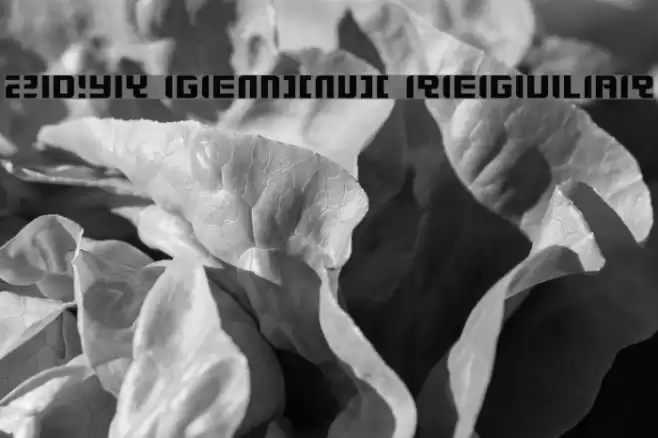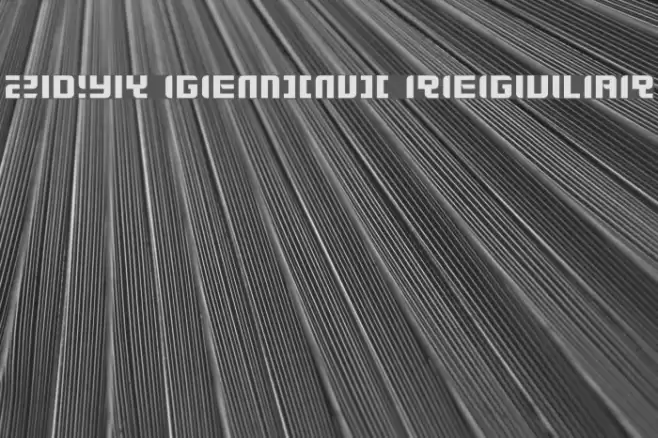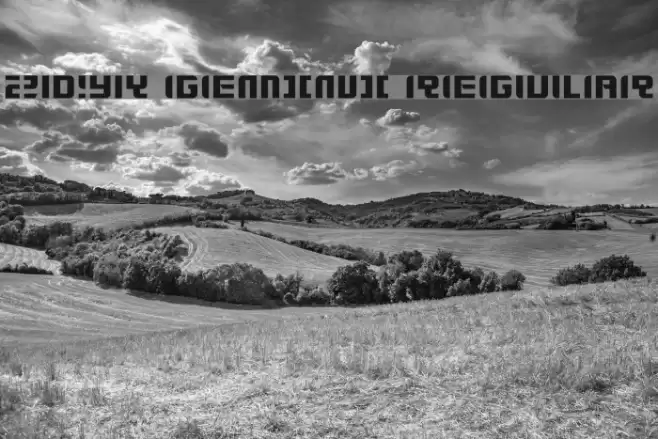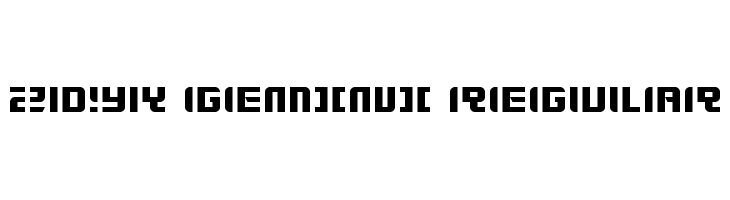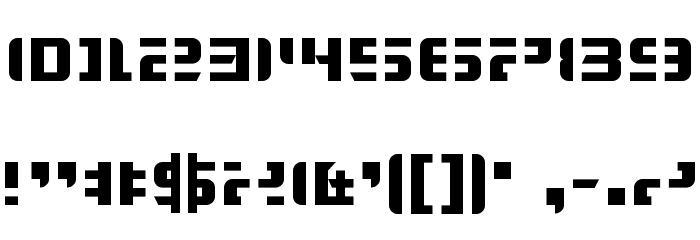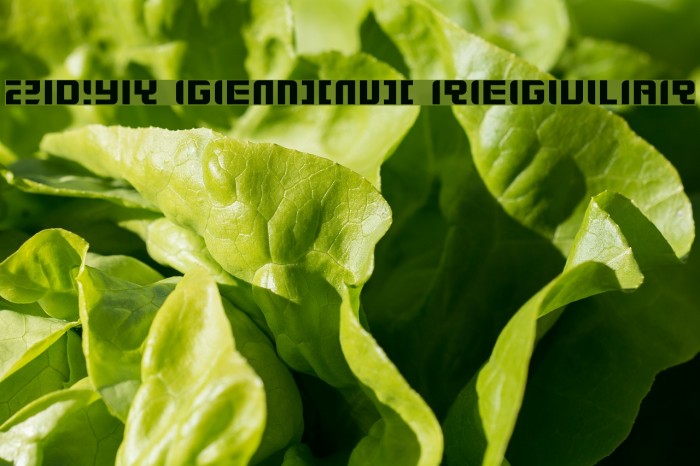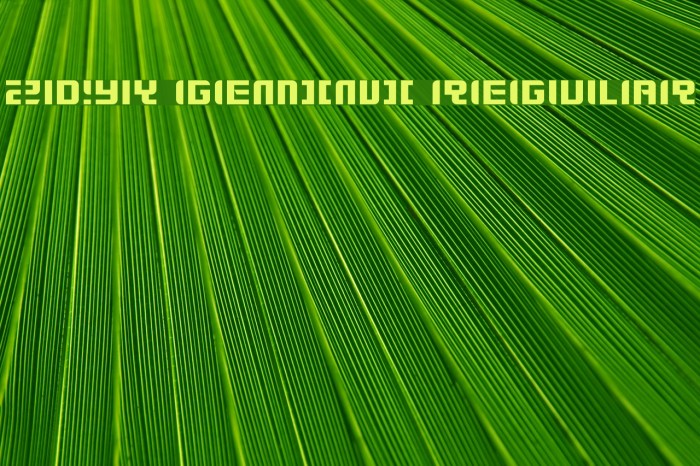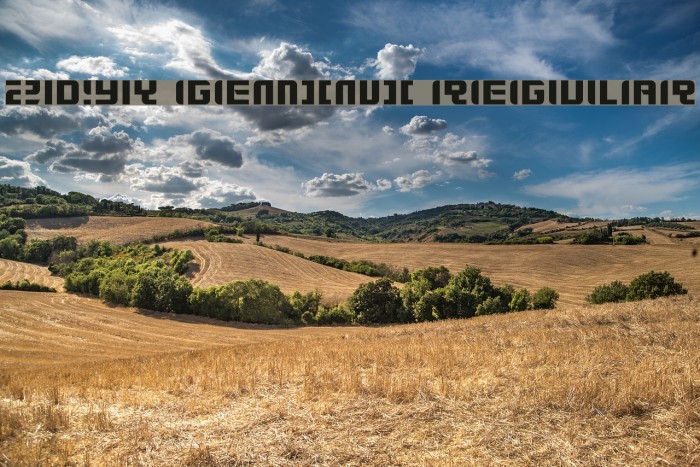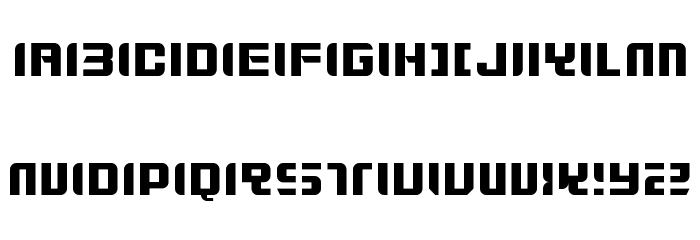
Zdyk Gemini Regular Font
Zdyk Gemini Regular Description
This font features a bold, geometric design with a futuristic aesthetic. The characters are constructed with thick, blocky strokes that create a strong visual impact. Each letter is distinct, with angular cuts and a uniform height that contribute to its modern appearance. The numbers and special characters follow the same design principles, ensuring consistency across all glyphs. The font's style is reminiscent of digital or sci-fi themes, making it suitable for projects that require a contemporary and edgy look.
A bold, geometric font with a futuristic and digital aesthetic from Uncategorized fonts.
- Proposed Projects: Ideal for sci-fi themed designs, digital interfaces, video game titles, and modern branding projects.